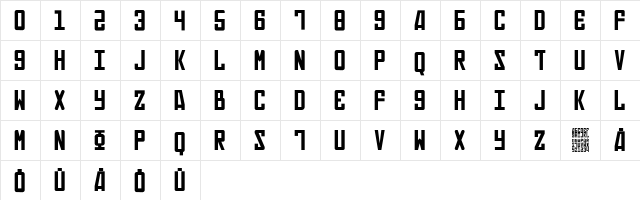
Russian Regular
Design Context for Russian Typeface
Russian offers clean, dependable letterforms without strong stylistic allegiance, making it a practical choice for designers who need flexibility.
Pro Tip: Pair Russian with a font of contrasting weight or personality to build a more expressive typographic hierarchy.